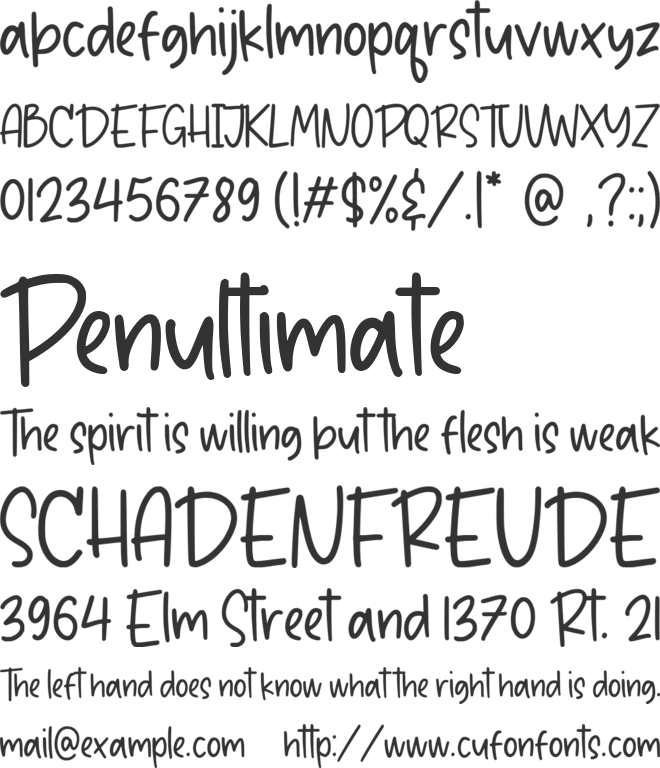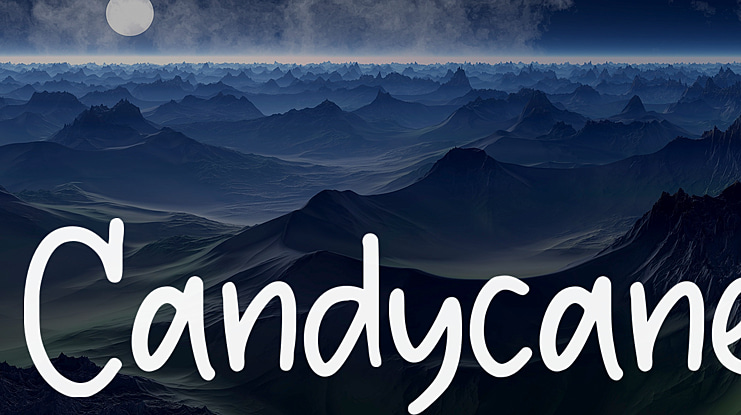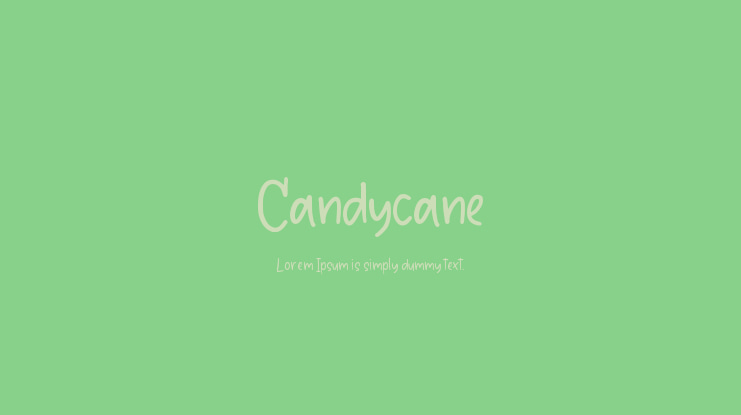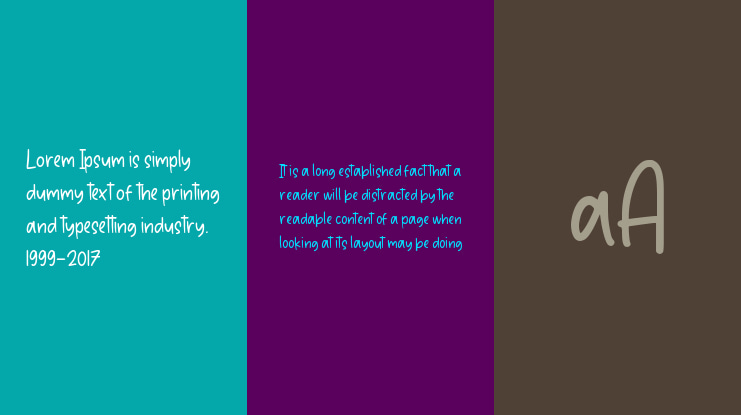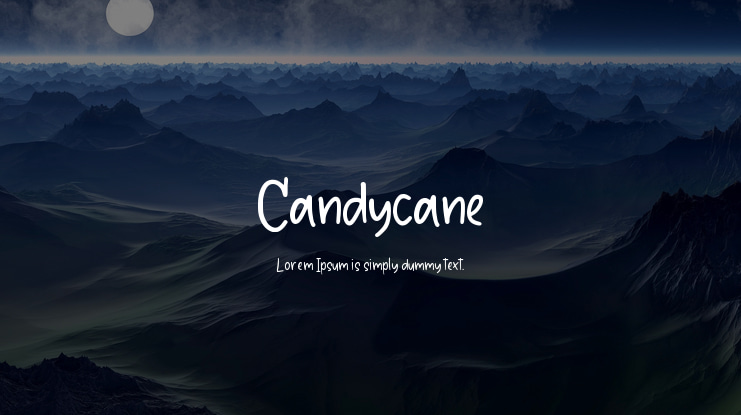
Candycane Font
Proudly Present, Candycane Font.
Candycane is a playful handwritten font.
Candycane is perfect for product packaging, branding project, megazine, social media, wedding, or just used to express words above the background.